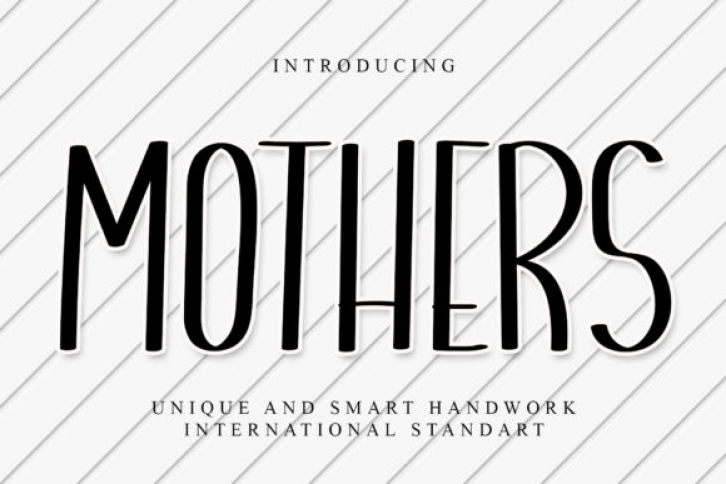
Mothers is a simple and neat display font. It can easily be matched to an incredibly large set of projects, so add it to your creative ideas and notice how it makes them stand out!